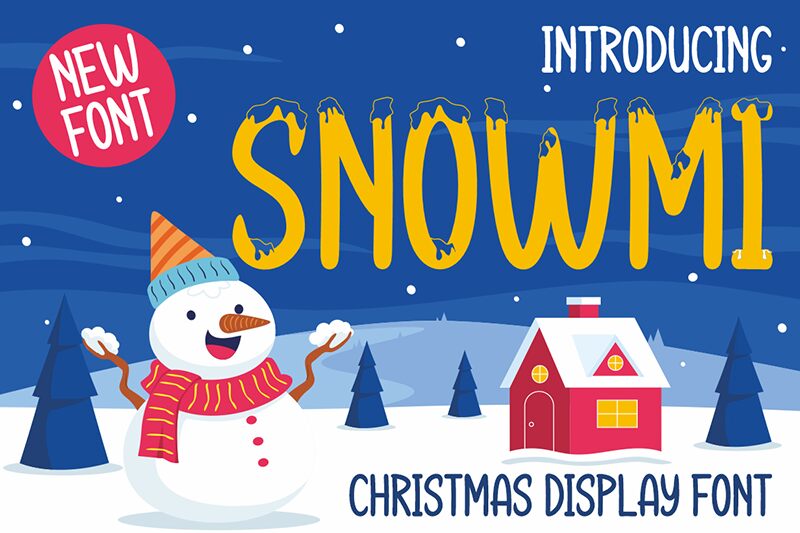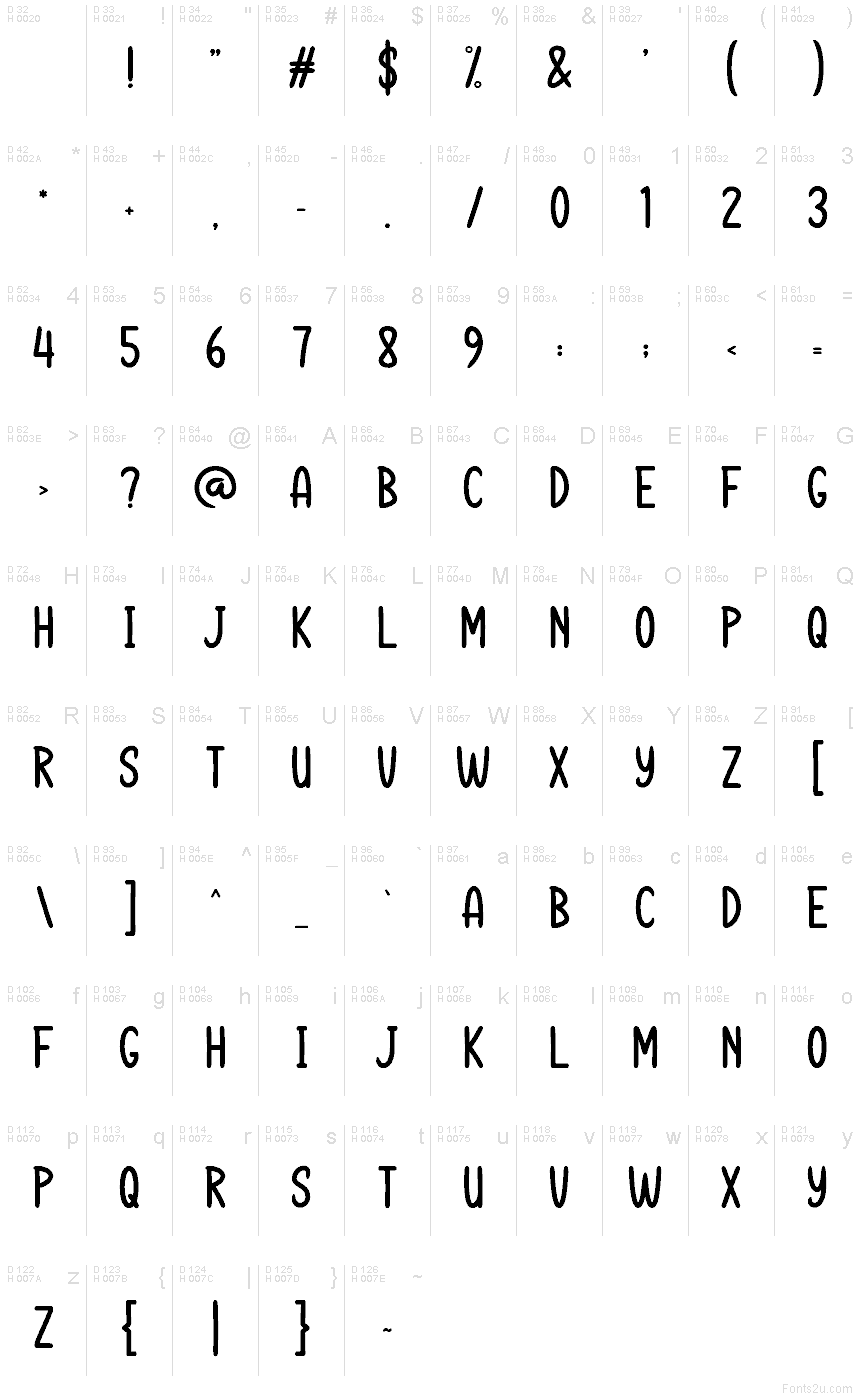
SNOWMI
Snowmi font by Gilang Ternadho is a free handwritten font that feels like thick marker ink pressed confidently onto paper. Its tall, rounded letters and even rhythm give it a friendly, bouncy energy, while the solid black strokes keep it bold and easy to read at a glance. There’s a cozy, crafty vibe here—like lettering you’d see on a cheerful poster, a kids’ project, or a hand-painted shop sign.
Using Snowmi, this free font shines on kids’ book covers, holiday cards, party invitations, playful logos, product packaging, stickers, and social media graphics that need warmth and personality. The consistent stroke weight keeps everything tidy, so your layouts stay fun without feeling messy. Try pairing Snowmi with a clean geometric sans for small text, and let Snowmi take center stage at larger sizes for headlines and key phrases.